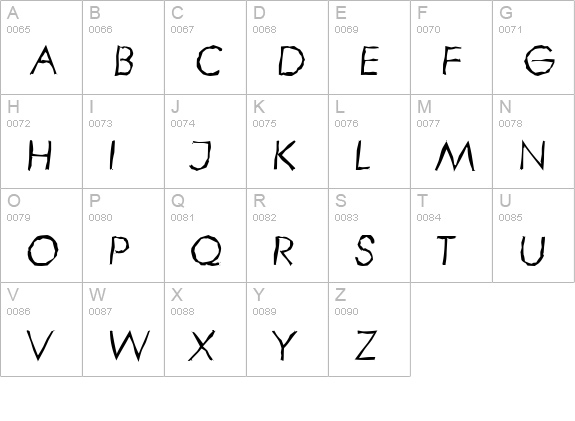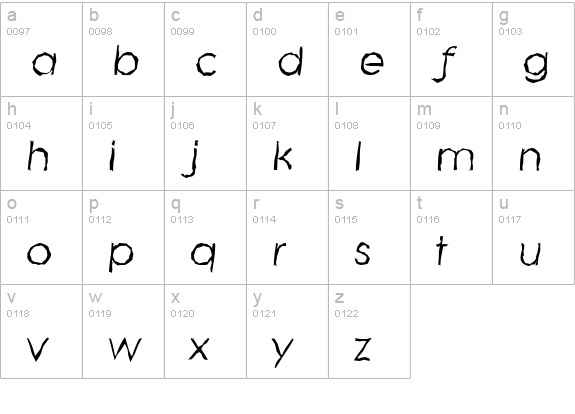
LiteraRandom-Italic Font Details
LiteraRandom-Italic is a distinctive, italic variant in the LiteraRandom typeface family \xE2\x80\x94 well suited to design and typography projects.
The LiteraRandom-Italic font is a sleek and stylish typeface that exudes elegance and sophistication. Its italicized design gives a sense of movement and flair, making it perfect for adding a touch of drama to your projects. The unique letterforms of LiteraRandom-Italic are sure to make a statement and stand out from the crowd. Whether you're designing a logo, creating a poster, or crafting a branding package, this font will elevate your work to the next level. Best of all, LiteraRandom-Italic is available for free download at FontsMarket.com. That's right, you can access this stunning font at no cost and start using it in your projects right away. Don't miss out on the opportunity to add LiteraRandom-Italic to your font collection and take your designs to new heights. Download it today and see the impact it can make on your creative endeavors.